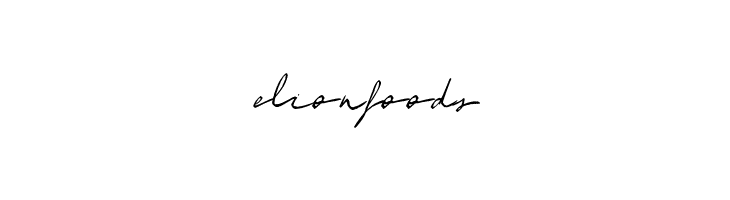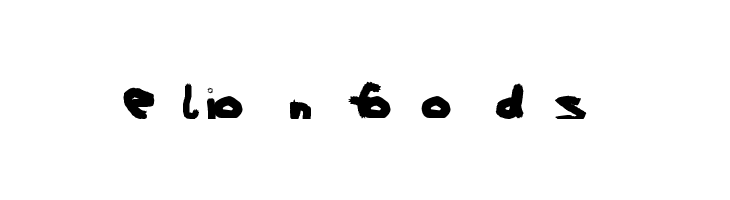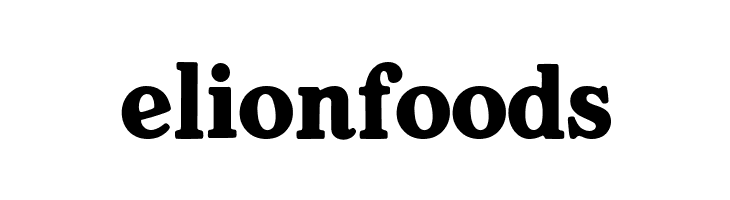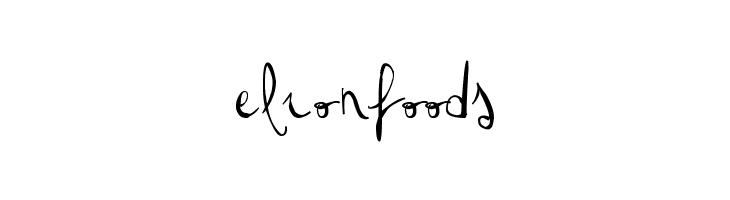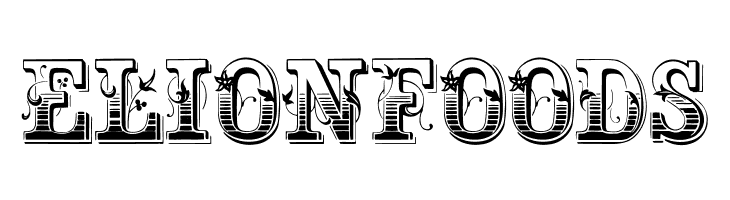
A casual, handwritten cursive font with elegant, flowing letters.
A bold, classic serif font with strong, pronounced strokes.
A whimsical and artistic font with flowing, irregular strokes and dynamic forms.
A bold, hand-drawn font with a rough, expressive style.
A bold, hand-drawn font with a rough, textured appearance resembling brush strokes.